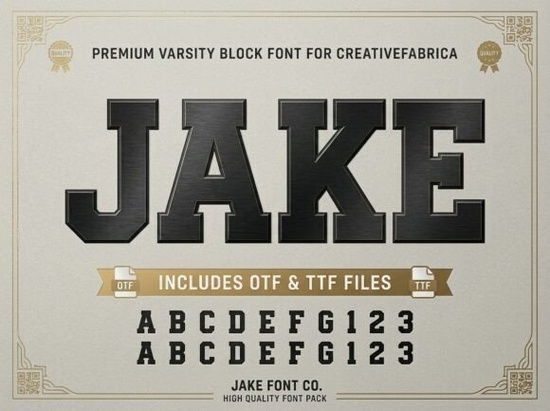
Looking for a bold typeface that channels the raw energy of competitive sports? The Jake Font is a premium varsity block typeface built for designers who need strong, athletic lettering. With its heavy slab serifs and classic collegiate proportions, it's a natural fit for sports branding, jersey numbers, and high-impact graphics that demand attention from a distance.
If you work on team merchandise, gym apparel, or event posters, this font was designed with exactly those projects in mind. Let's look at what makes it stand out and how you can put it to work.
What Makes a Good Varsity Block Font?
A solid varsity block font needs a few things to work well in real projects:
- Heavy, uniform weight so letters stay readable on jerseys, banners, and signage
- Sharp slab serifs giving each character structure and presence
- Classic proportions rooted in the tradition of collegiate and athletic lettering
- Versatility across sizes from small tags to large-format prints
Jake checks all of these boxes. Its block style feels disciplined and authoritative without being overly decorative, which is exactly what most sports-related designs call for.
Who Is This Font Best For?
Jake works well across a range of creative work. Here are some of the most common uses:
- Print-on-demand sellers creating sports-themed t-shirts, hoodies, and accessories
- Small businesses and local teams designing logos, letterheads, and promotional materials
- Event organizers building posters, flyers, and banners for tournaments and meets
- Crafters and hobbyists working on scrapbook pages, graduation cards, or school spirit projects
- Designers assembling brand kits for gyms, fitness coaches, or athletic programs
Whether you're making a single game-day poster or building out a full team brand identity, this typeface gives you a reliable foundation.
How Does Jake Compare to Other Display Fonts?
There's no shortage of display fonts on Creative Fabrica, but each one serves a different visual purpose. If you're working on something playful, the Bubble Lovers font offers a fun, rounded style. For projects with a worn, textured look, a distressed display font adds grit and character. And if you need something kid-friendly, the Crayons font brings a hand-drawn charm.
Jake sits in a very specific lane: athletic, block-style, collegiate lettering. It's not trying to be whimsical or quirky. It's built for impact, legibility, and a strong competitive feel. If you also like that retro school-spirit aesthetic, the vintage varsity display style is another direction worth exploring, though Jake leans more modern and solid in its execution.
For designers who want a typeface with a darker, moodier edge, something like the Rabbit Hole display font takes things in an entirely different direction. The point is that display fonts are not one-size-fits-all, and picking the right one depends on the mood you're trying to set.
Does It Work Well for Jersey Numbers and Sports Branding?
Yes this is exactly where Jake shines. Sports jersey numbering requires a font that is:
- Bold enough to read from across a field or court
- Clean enough that individual digits are instantly recognizable
- Consistent in weight so the entire set of numbers looks unified
Jake's heavy, solid construction handles all of this well. The sharp edges and slab serifs also give it that unmistakable varsity feel that people associate with school pride and athletic competition. For team branding beyond jerseys think caps, bags, water bottles, and social media graphics this font carries that same energy across every touchpoint.
Tips for Using Varsity Fonts in Your Projects
Here are a few practical suggestions to get the most out of a typeface like Jake:
- Pair it with a clean sans-serif for body text so the bold headers stand out without overwhelming the design
- Use all caps for maximum impact varsity block fonts are typically designed to look their strongest in uppercase
- Limit your color palette two-tone combinations (like white on navy, or red on black) work best with athletic lettering
- Test at the final output size before committing, especially for large-format printing or small embroidery
- ☑️ You need a bold, athletic block typeface not a script or handwritten style
- ☑️ Your project involves sports, school, fitness, or team branding
- ☑️ You want high legibility at both large and moderate sizes
- ☑️ You're comfortable working with an all-caps or headline-focused font